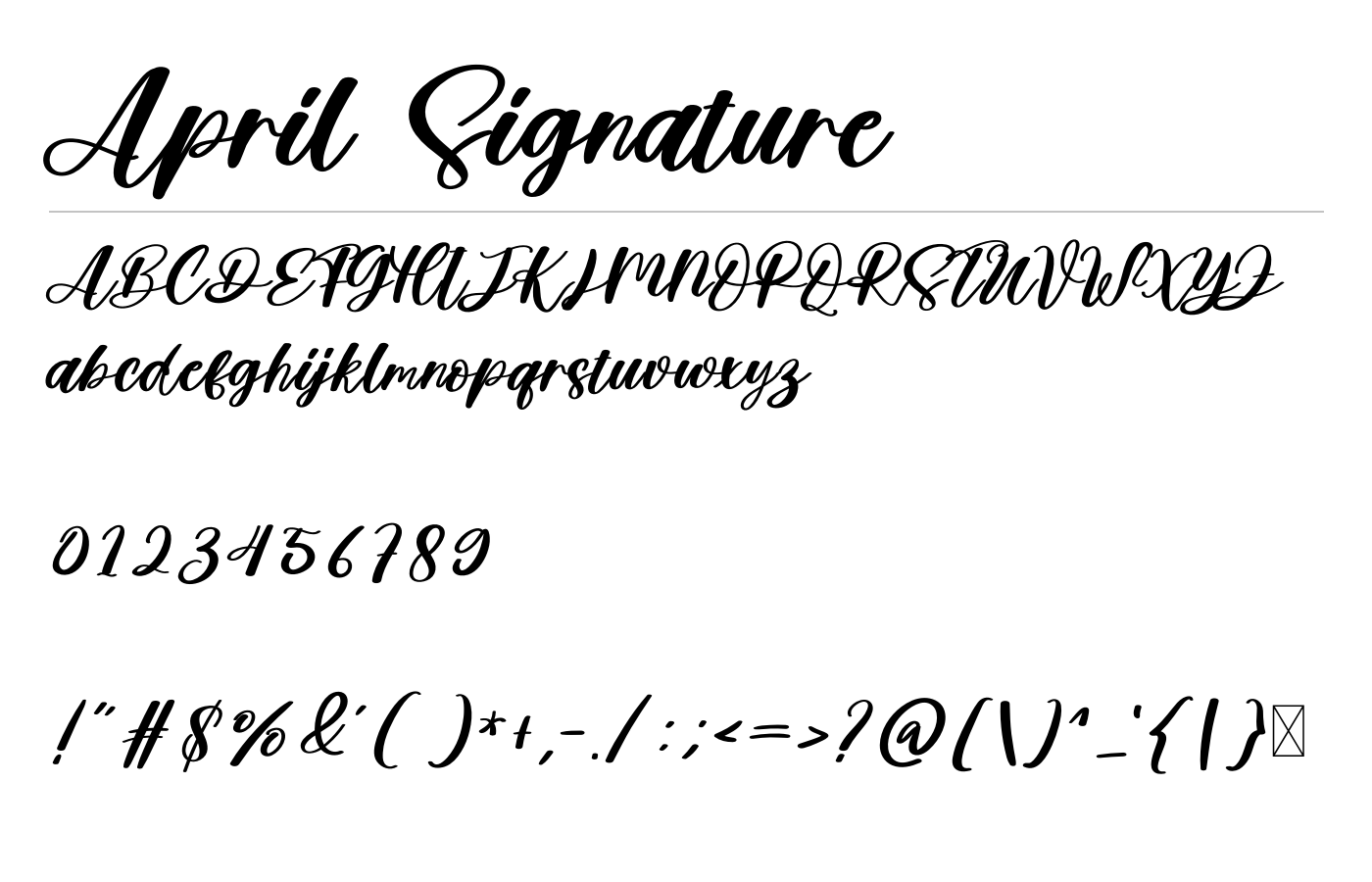
April Signature Font is a stylish and elegant script font that mimics natural handwriting with smooth, flowing strokes and a dynamic, personal feel. It features a balanced weight with moderate contrast, combining both bold and delicate curves that make it perfect for adding a sophisticated, handcrafted touch to designs. This font works beautifully for branding, invitations, logos, and any project needing a chic, modern signature style.
April Signature Font
About April Signature Font